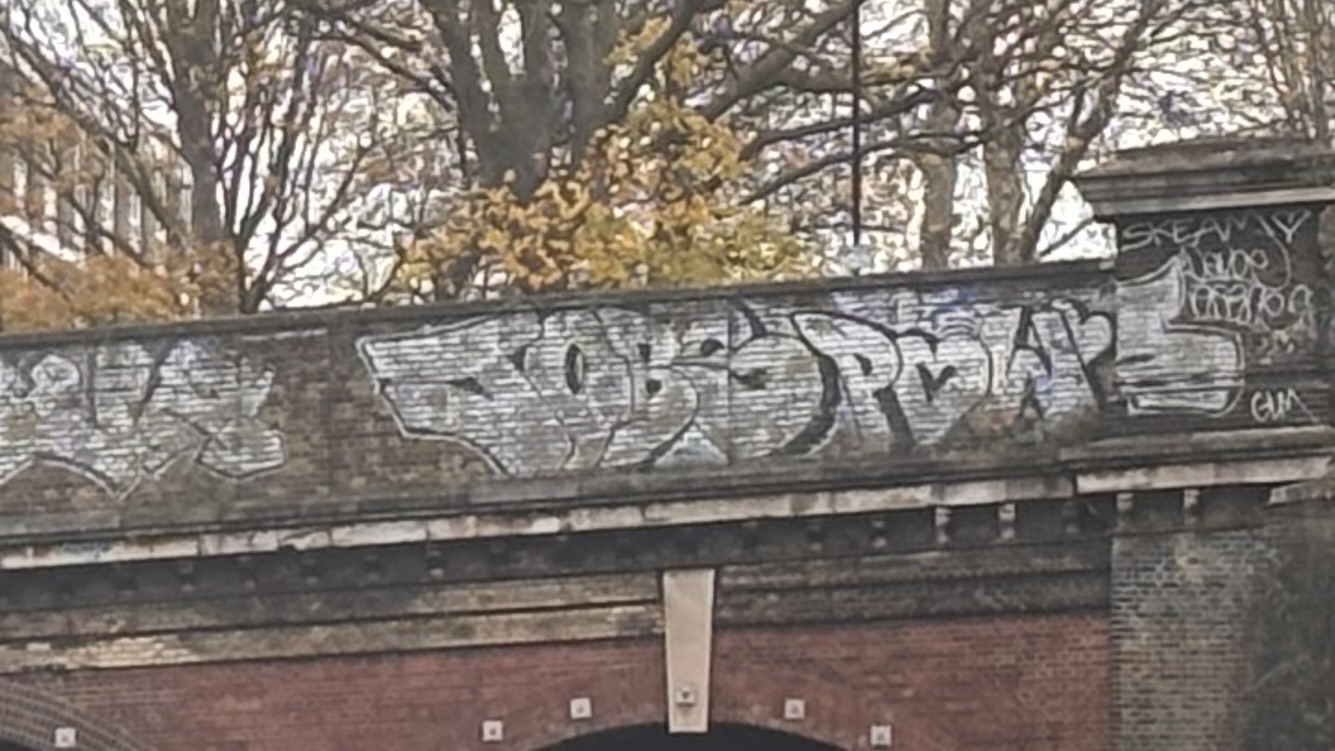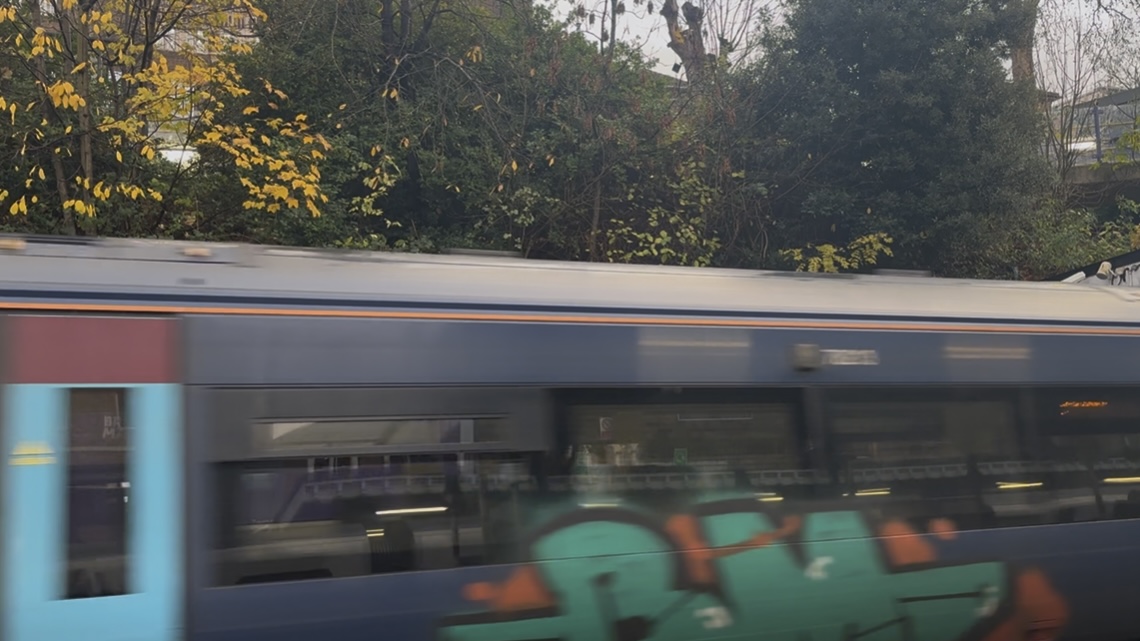
PLATFORM DH was inspired by the visual details I noticed around Denmark Hill station, specifically the graffiti along the tracks and on the tunnels. The layered marks and personalised lettering stood out within a space that is mostly functional and overlooked. The aim of this design is to reflect the energy of even simple graffiti lettering sitting against the stations structured architecture. This typeface is for big and bold lettering, implying artistic personalisation while maintaining its clean and clear structure.